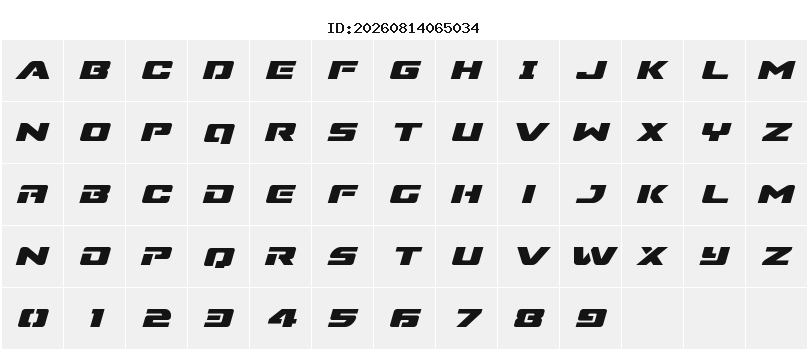
Super Commando Expanded Italic Preview
• Font Name: Super Commando Expanded Italic
• Font Style: Expanded Italic
• Full Font Name: Super Commando Expanded Italic
About Super Commando Expanded Italic.ttf
Super Commando Expanded Italic.ttf is a modern, elegant sans-serif font designed for ultimate readability and visual harmony. Perfect for branding, headlines, web design, and print materials.